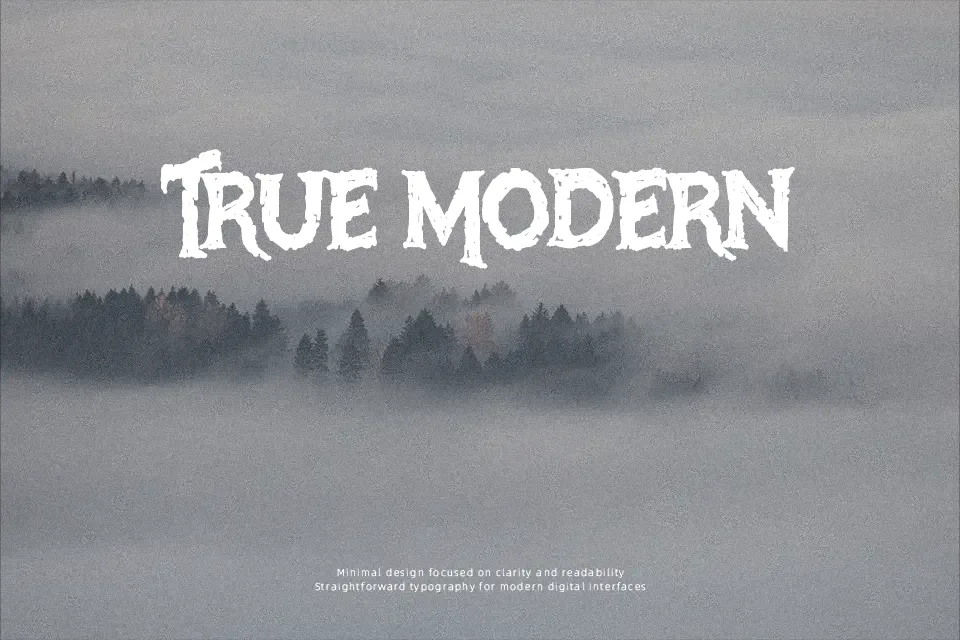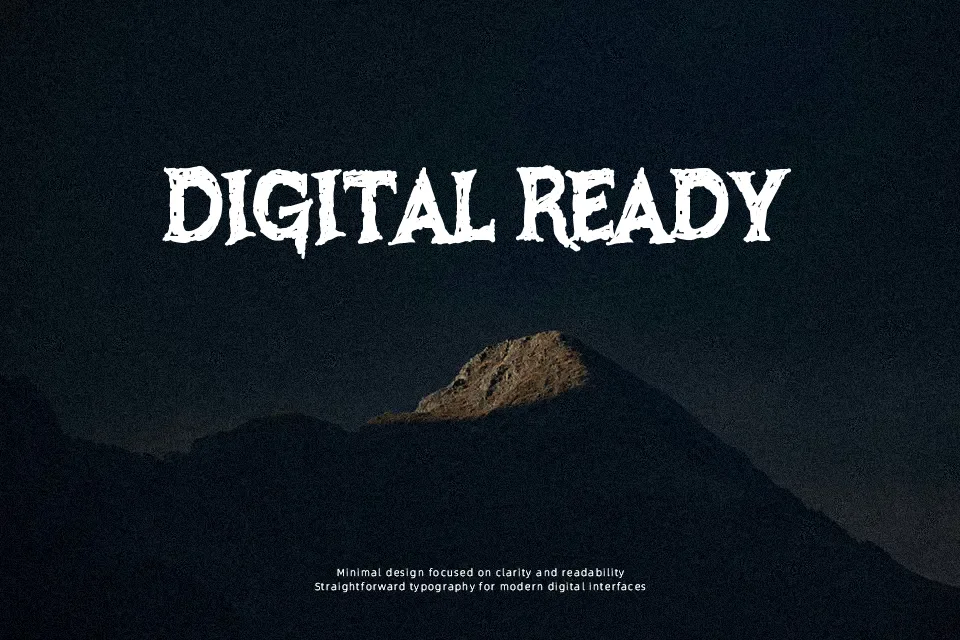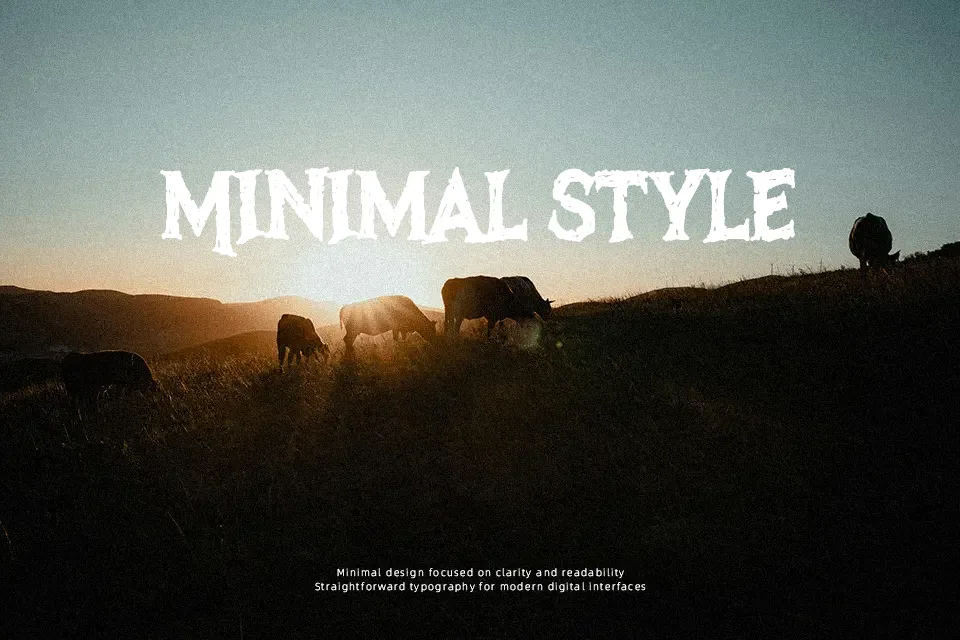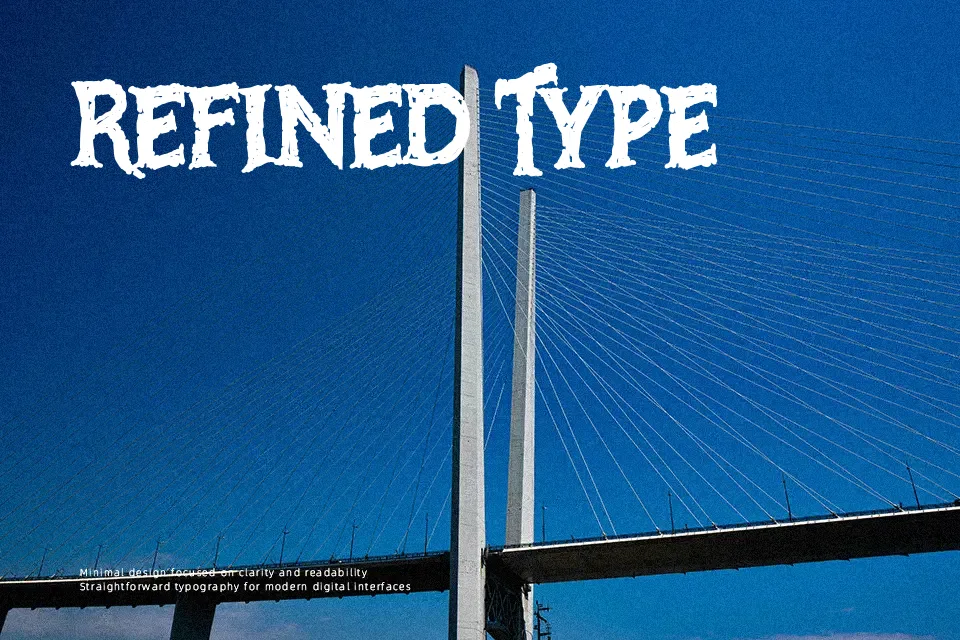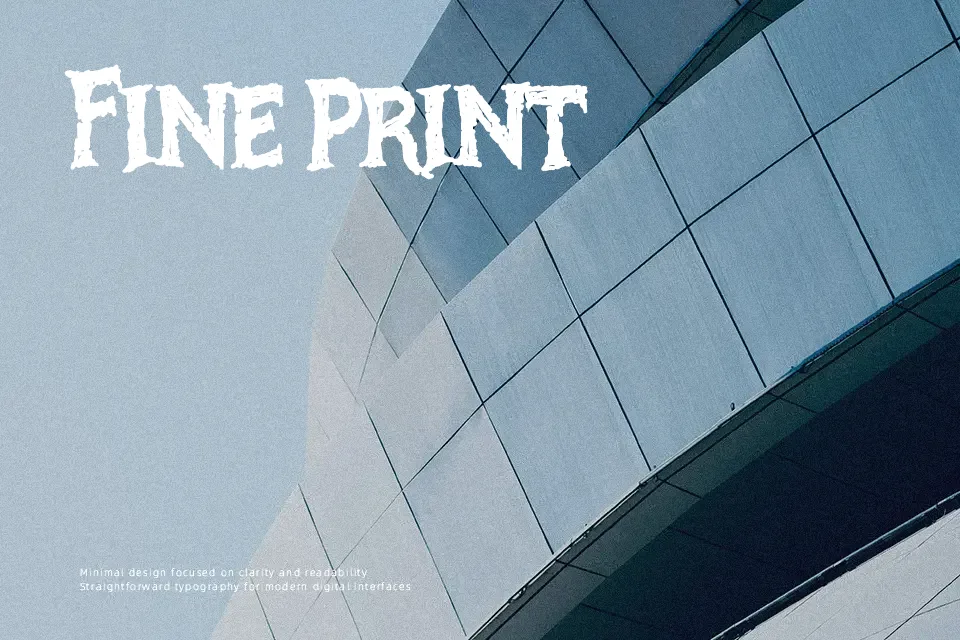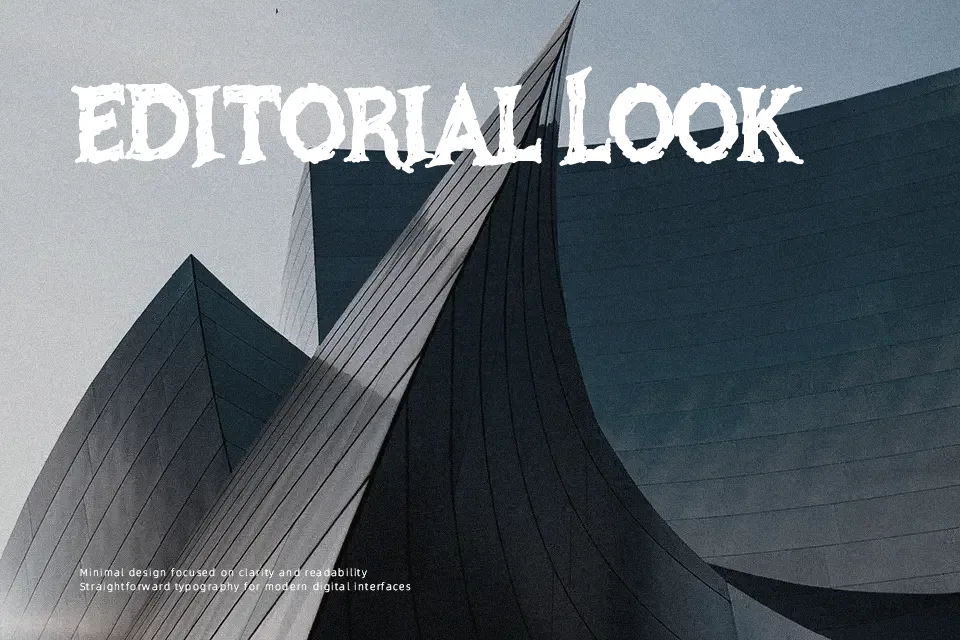
Swinging Wake Font
Swinging Wake Font uses irregular hand-lettered forms, varied stroke weight, and restless contours to create a dark display texture. The characters appear loosely proportioned rather than mechanically uniform, giving short words a raw, animated rhythm. Spacing is most effective when the type is given room to breathe in large headlines, while the expressive outlines can make compact settings harder to scan. It suits titles, posters, apparel graphics, and themed event artwork where atmosphere matters more than neutral clarity. The typeface has strong visual character at display sizes, but its decorative movement becomes tiring in small copy or continuous reading.
Best For: Halloween posters,haunted attraction signage,horror film titles,dark apparel graphics
Perfect for film, halloween, and headline, with a creative and decorative style.